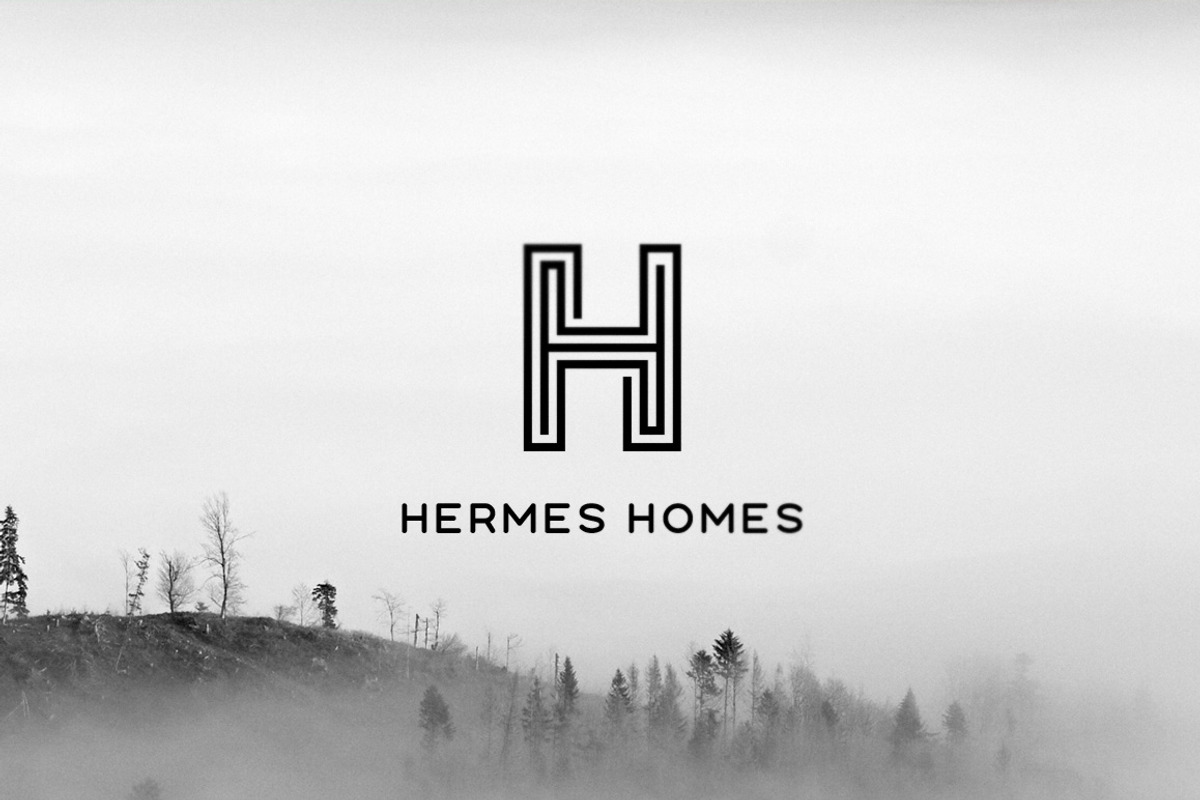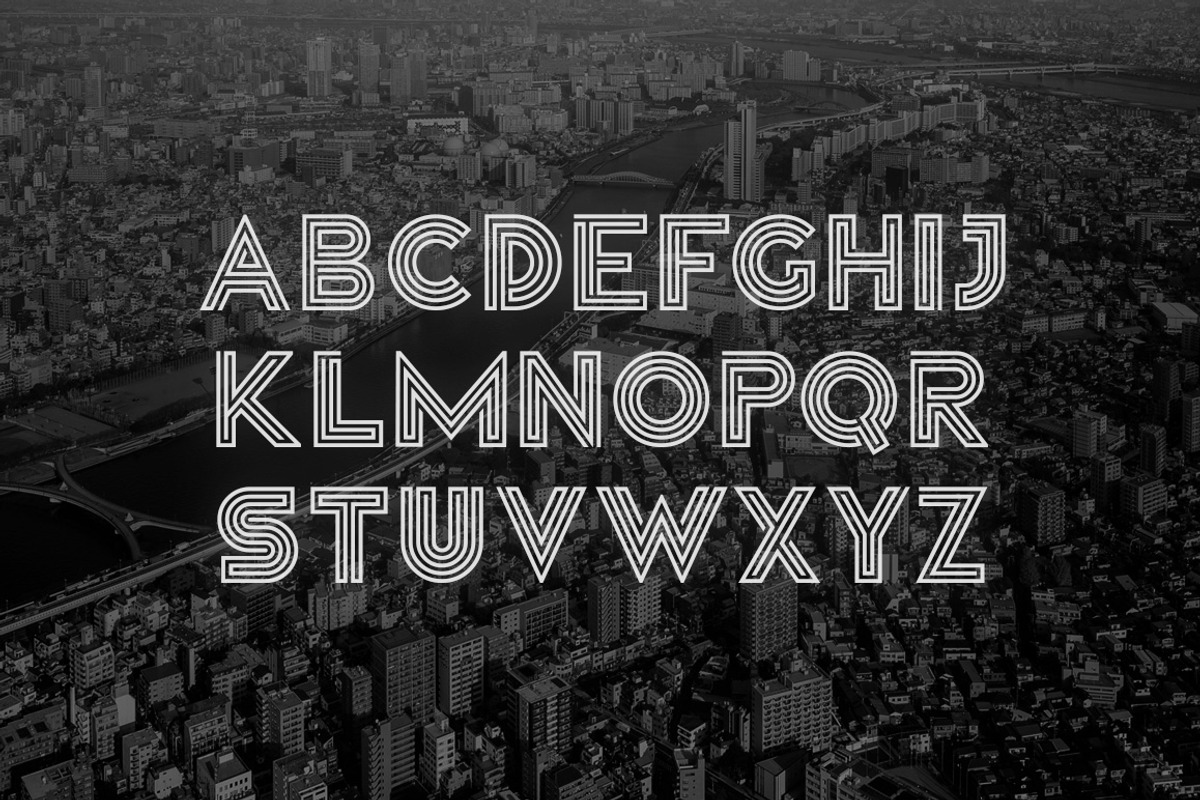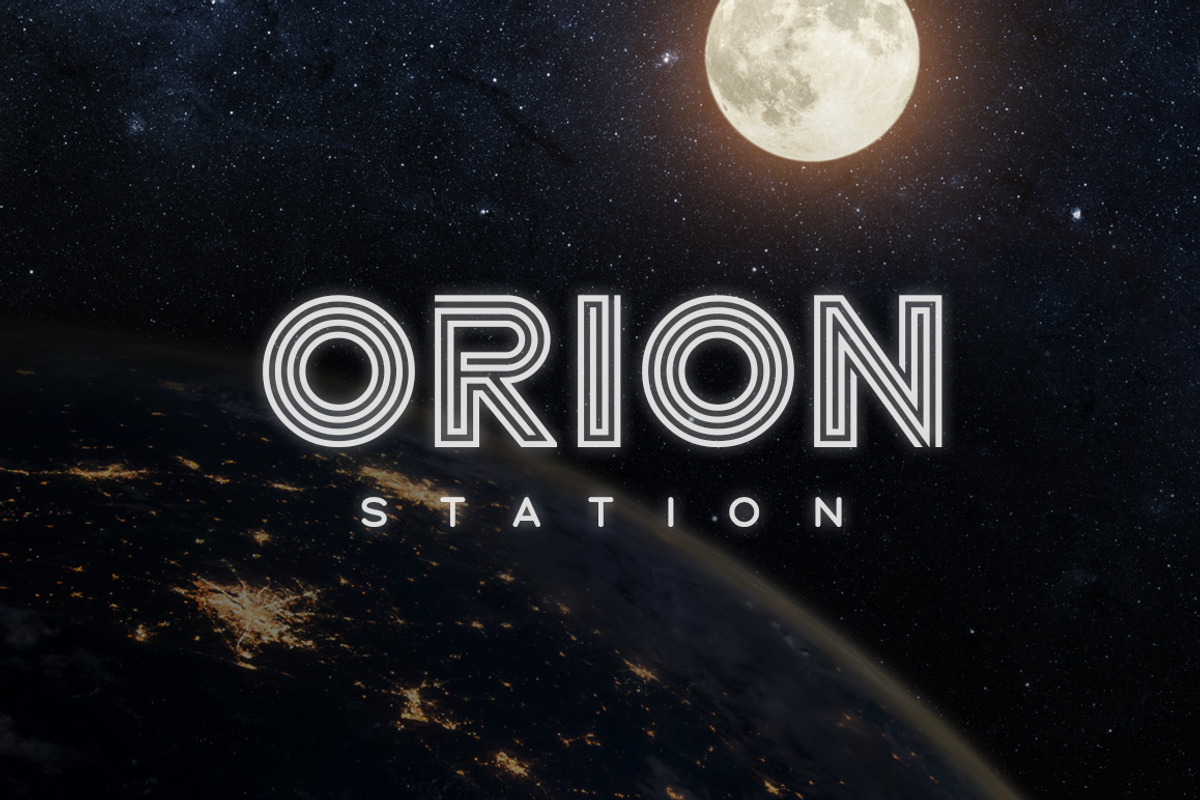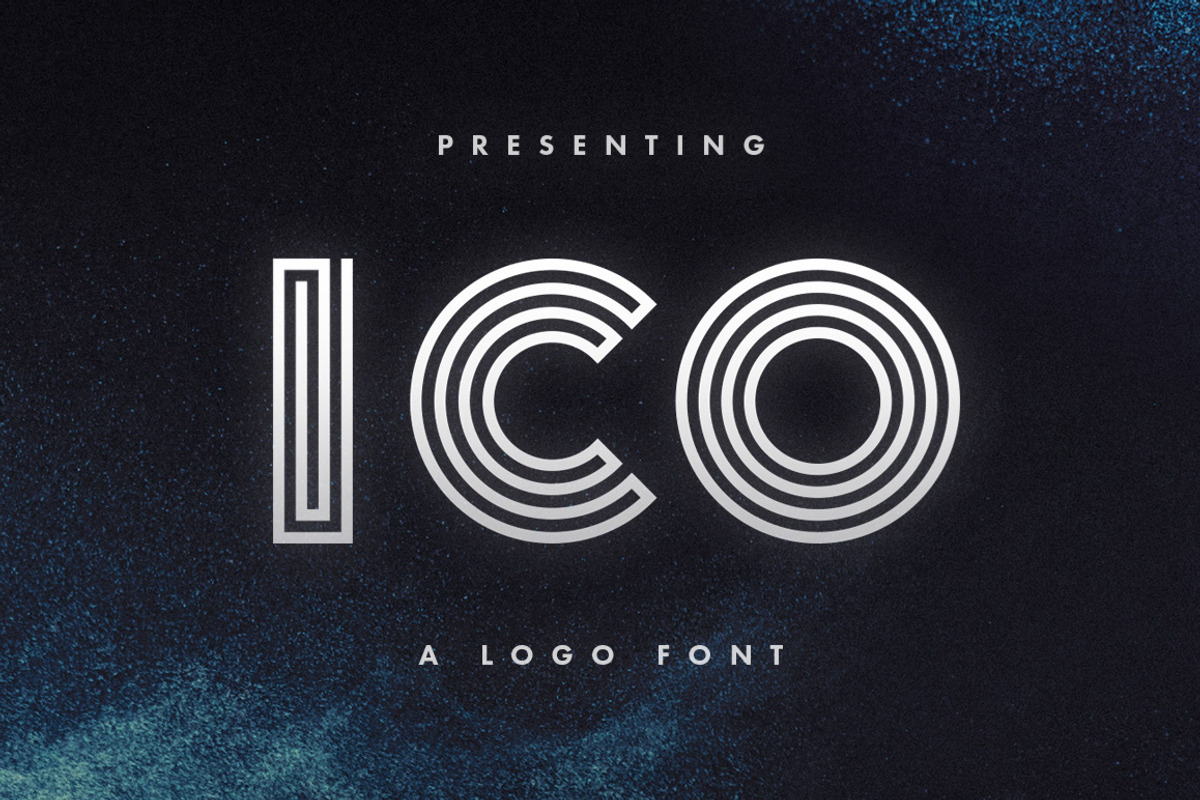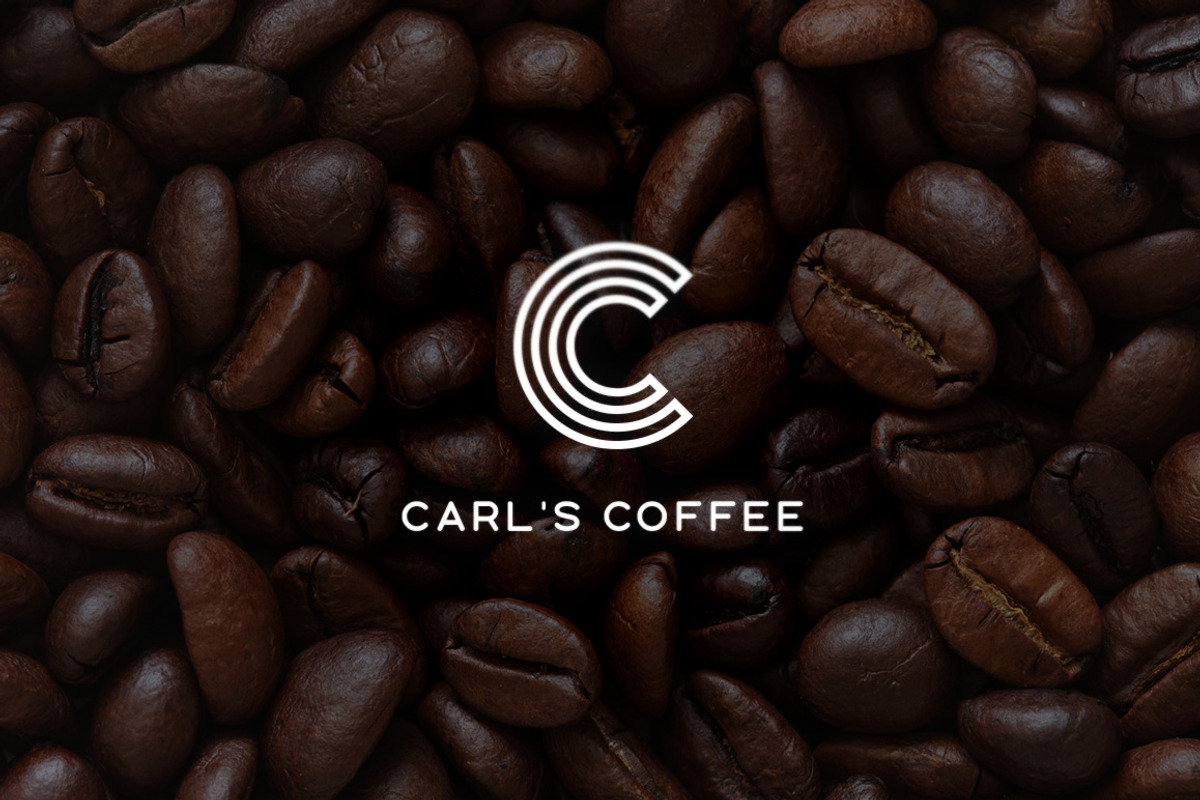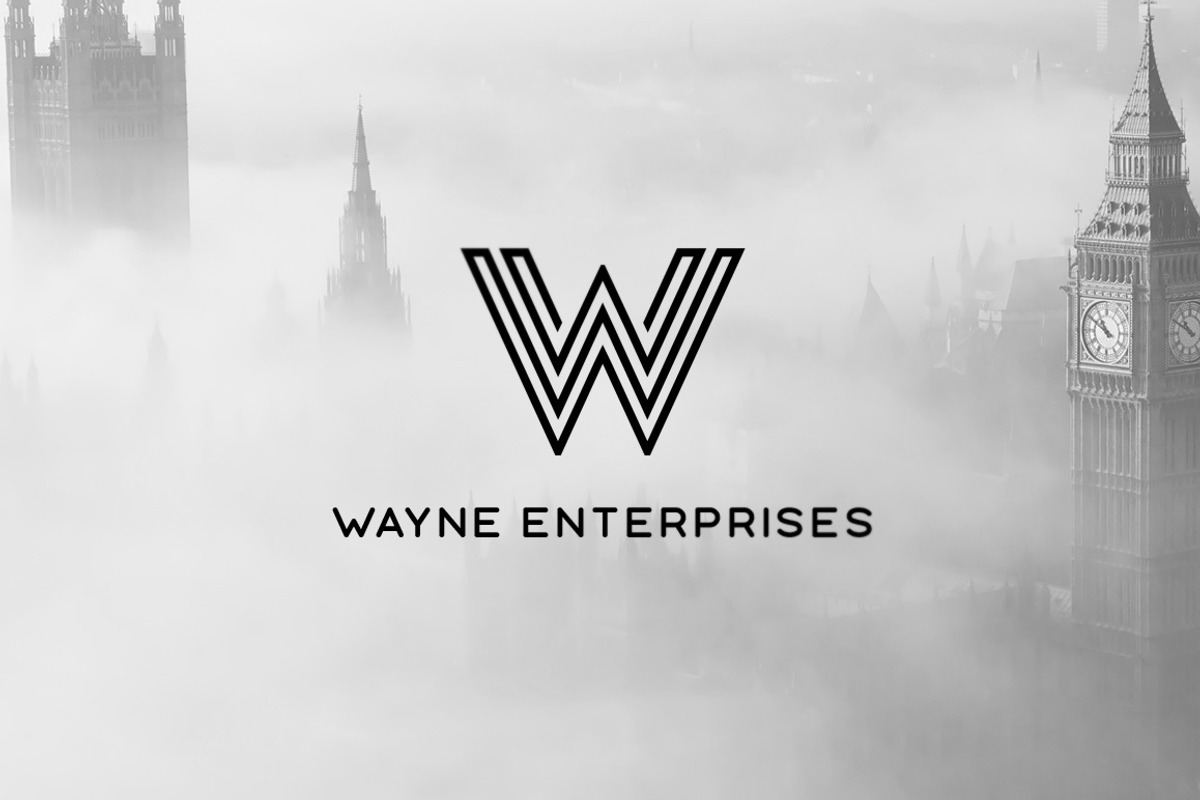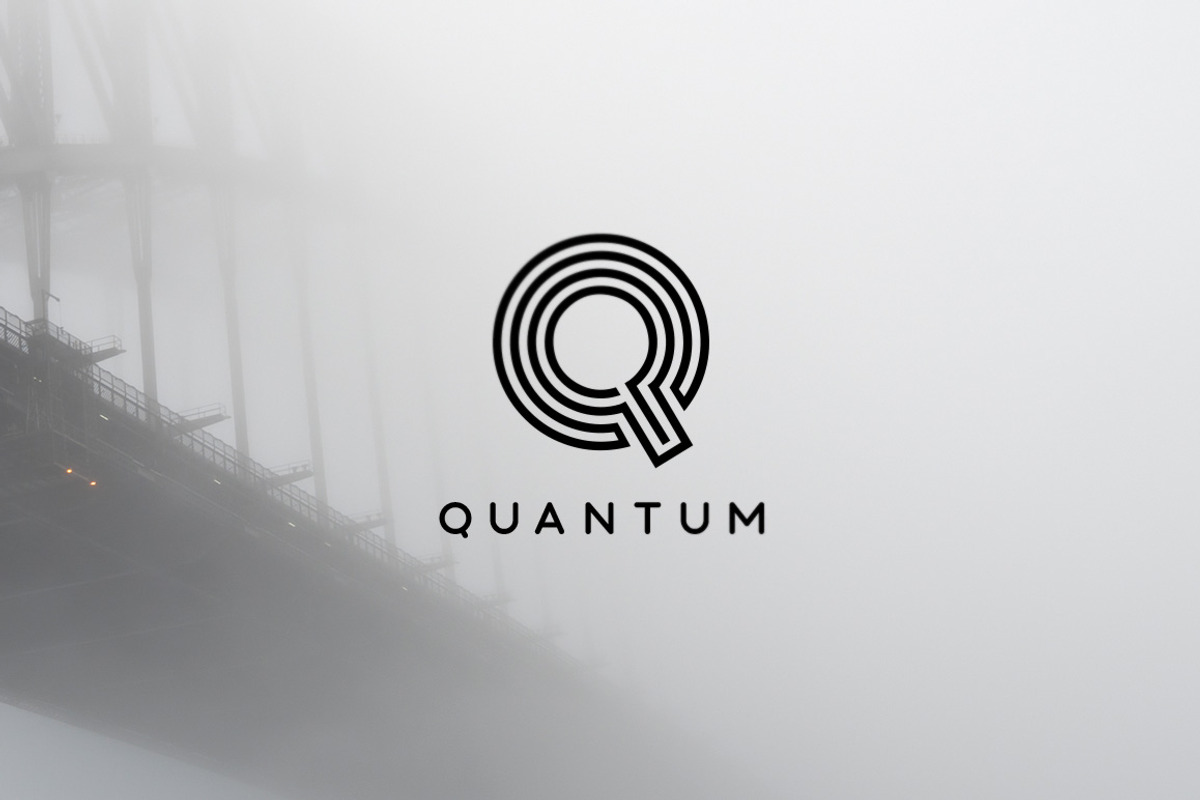
Ico - Logo Font
Ico - Logo Font by Tugcu Design Co. is a font selected for branding, posters, packaging, typography.
- It features uppercase letters, numbers and punctuation.
- Most letters also have alternate versions that you can toggle with Caps Lock.
Why Ico - Logo Font is worth a look
Ico - Logo Font by Tugcu Design Co. fits naturally into Branding, posters, packaging, typography.